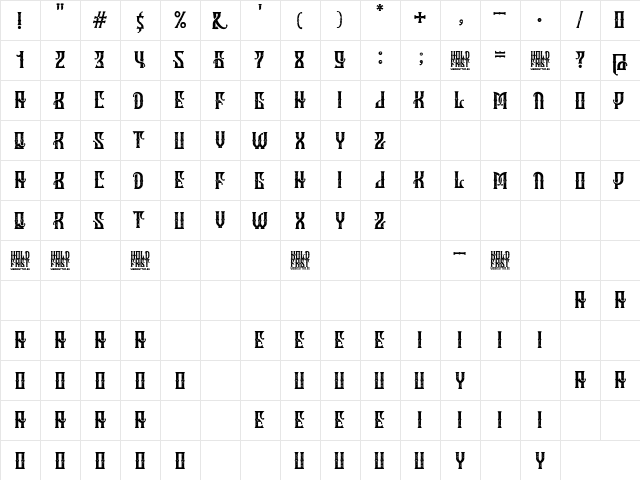
Hold Fast Regular
Design Context for Hold Fast Typeface
Hold Fast is a composed and adaptable typeface that performs quietly and consistently across a wide range of design contexts.